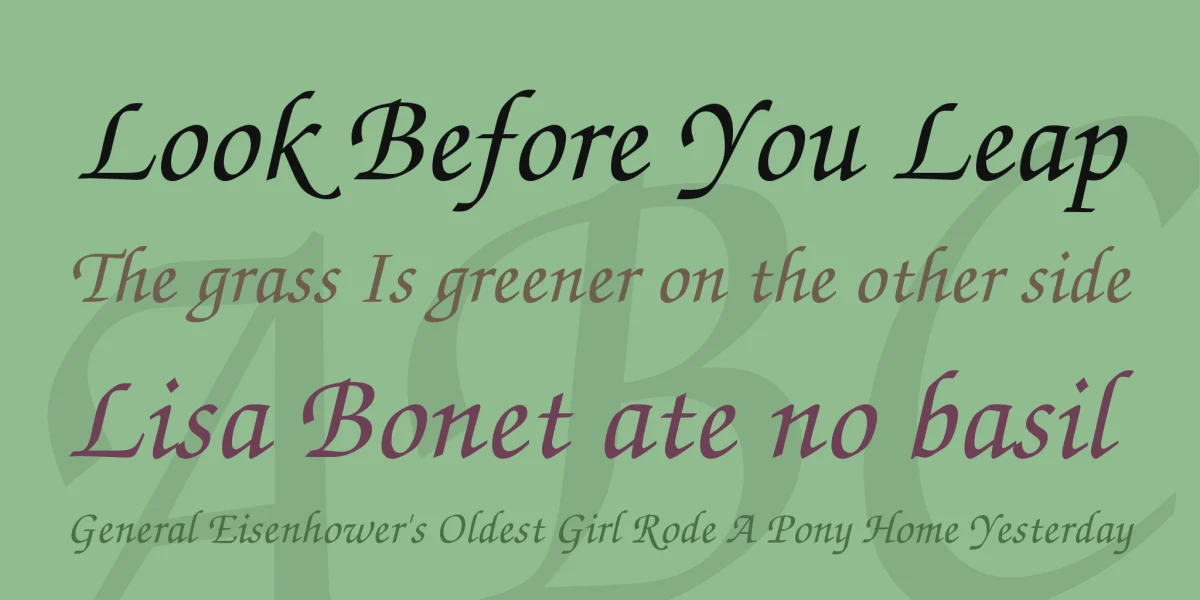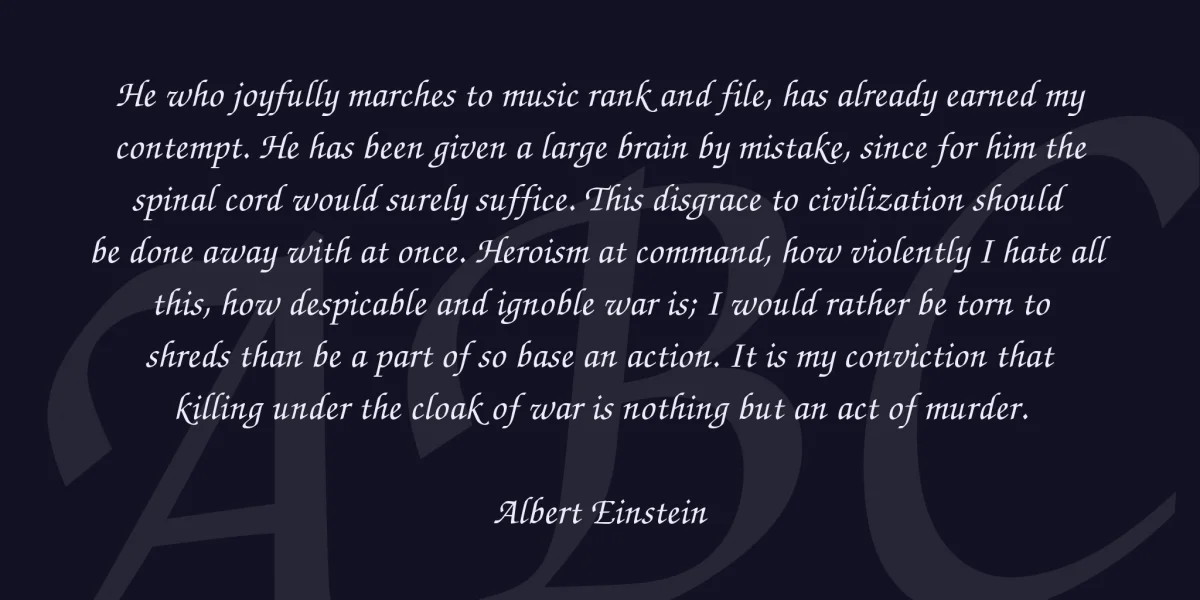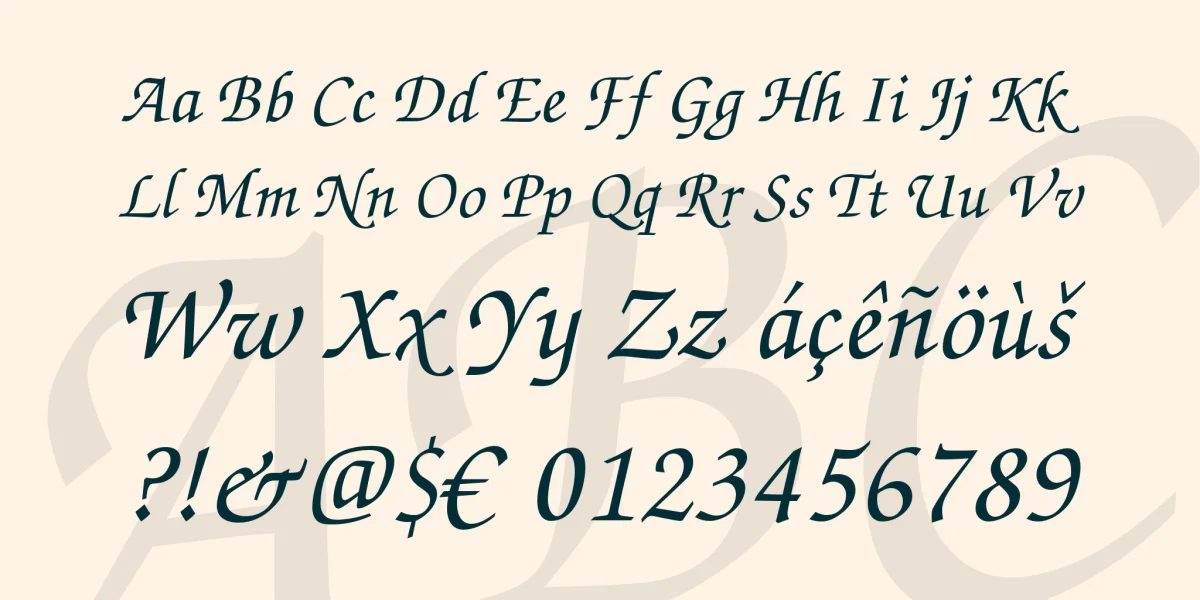
The TeX Gyre Chorus is a font based on the URW Chancery L Medium Italic font distributed with Ghostscript. The original, ITC Zapf Chancery, was designed in 1979 by Hermann Zapf who was inspired by handwritten letterforms of the Italian Renaissance (currently, other variants of this typeface are available). Compared to URW Chancery L Medium Italic, TeX Gyre Chorus is heavily extended and contains more than 900 glyphs. Unlike for other fonts from the TeX Gyre collection, Greek letters are missing and so are small caps (using capital forms of chancery characters for typesetting whole words should be forbidden by law)